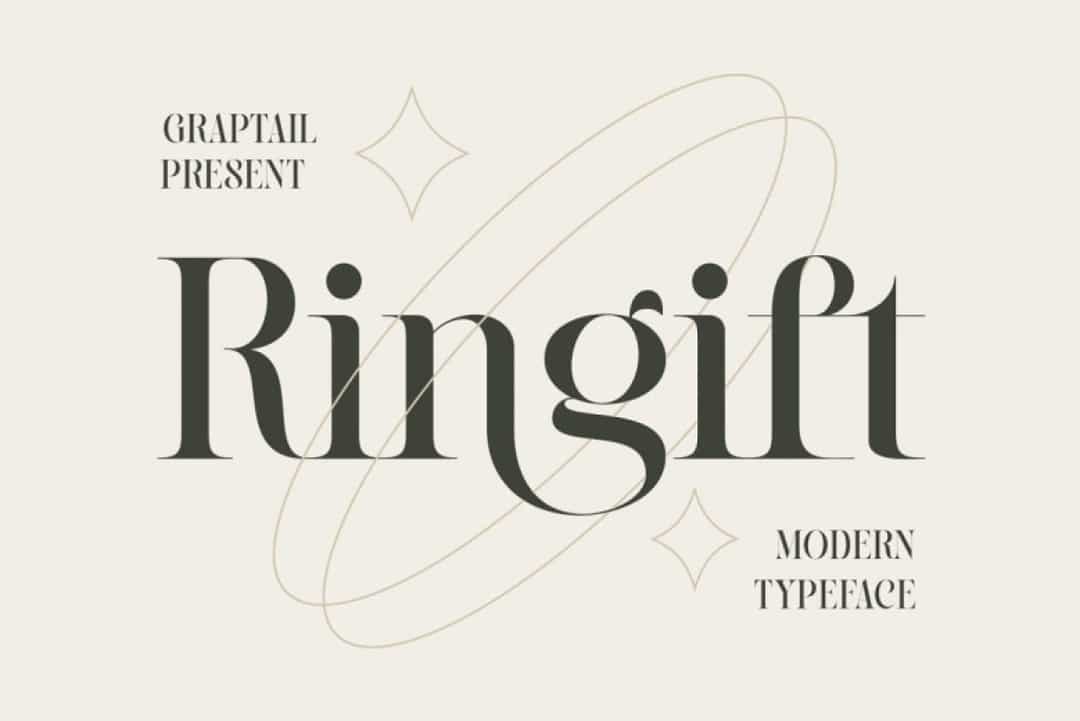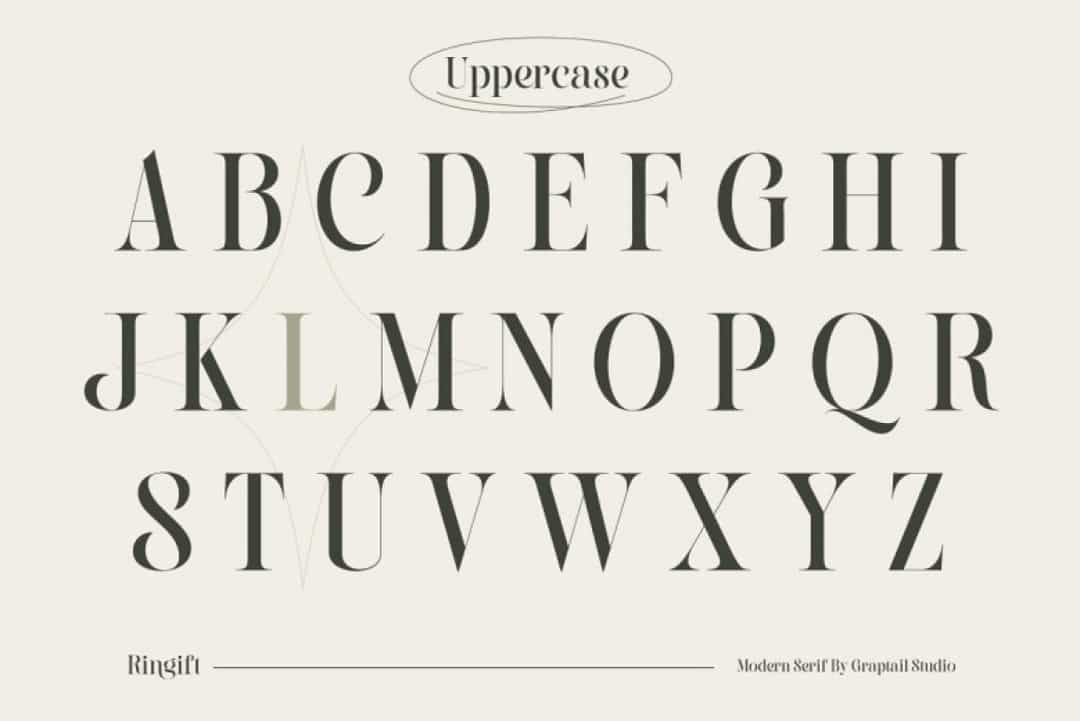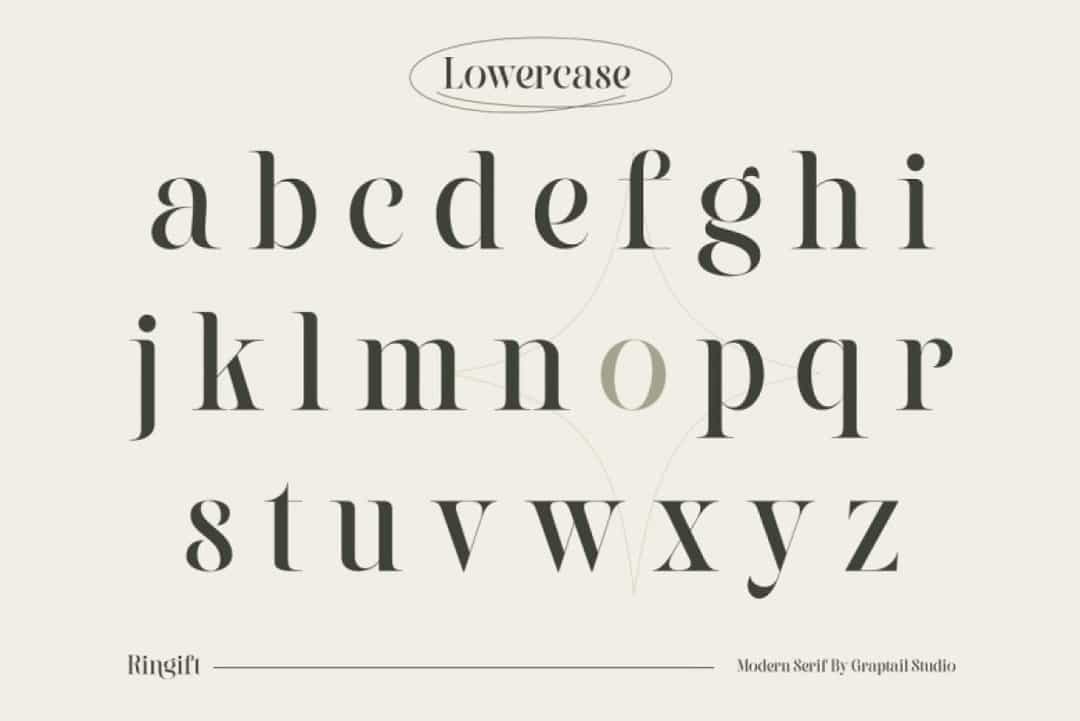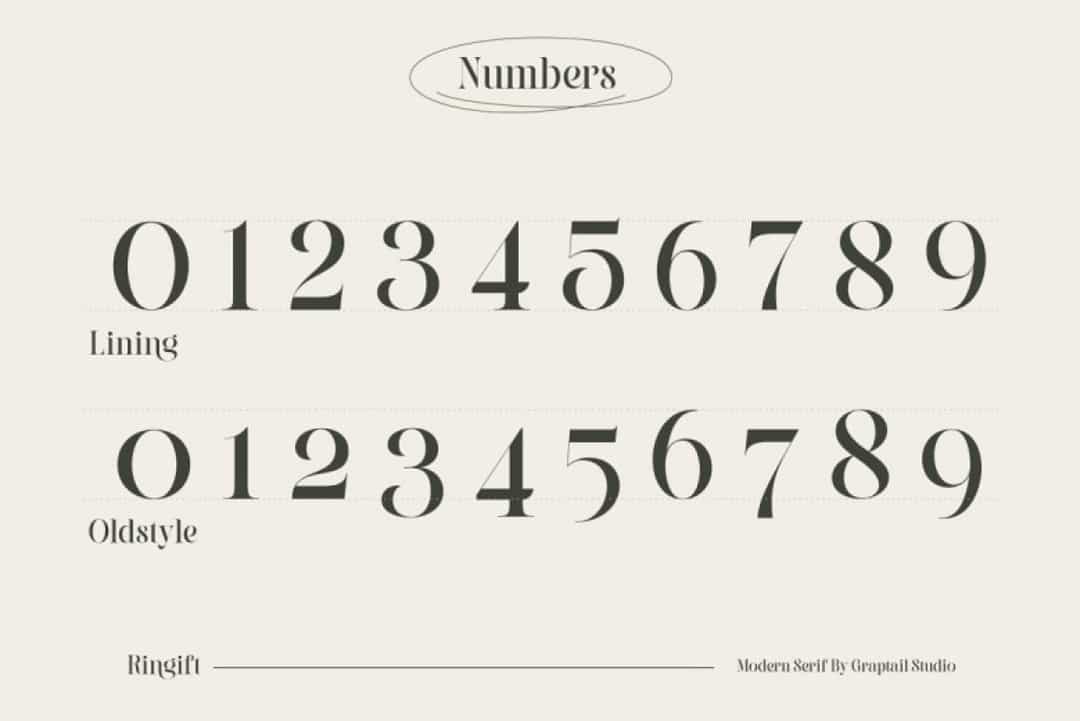
Ringift is an elegant modern serif font designed to add sophistication to any project, such as logos and greeting cards posters, quotes branding postcards, business cards film titles blog headers and art quote magazines. Equipped with 21 Ligatures included it can also help compose titles of projects such as these!